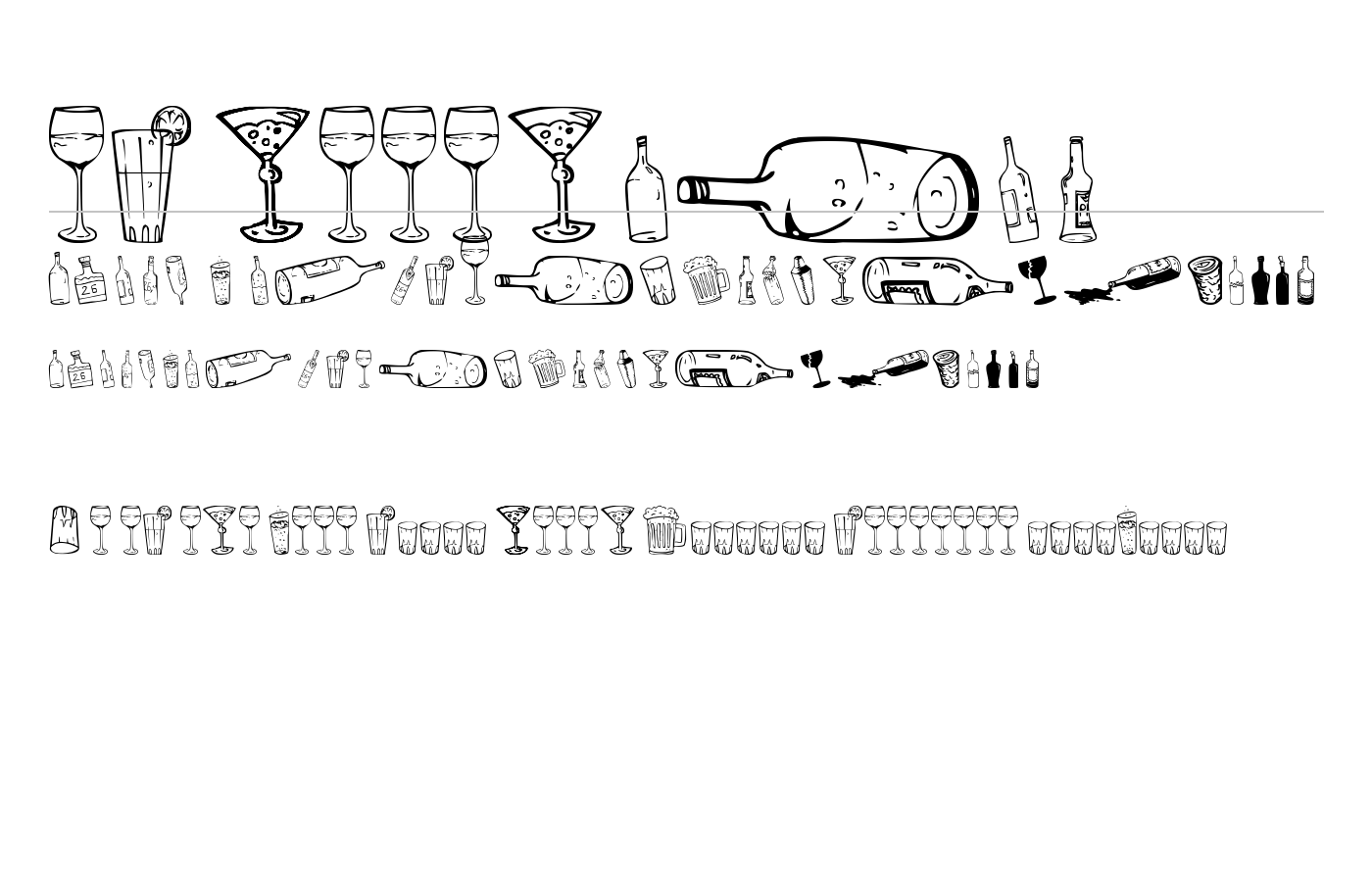
26alco Font is a playful and artistic dingbat font made up of hand-drawn alcoholic beverage icons and related items. Its informal line art style makes it perfect for casual, fun designs related to bars, parties, or events, adding a unique decorative touch rather than serving as a text font. This font works great for creative packaging, invitations, menus, and promotional materials where an engaging, thematic visual element is desired.
26alco Font
About 26alco Font
| Font family | 26alco Font |